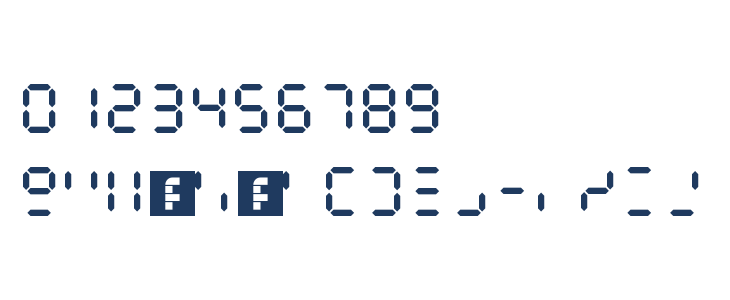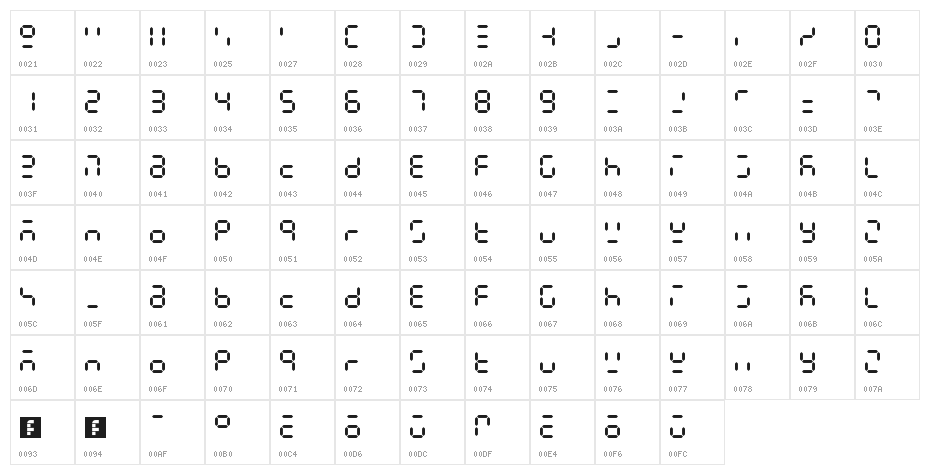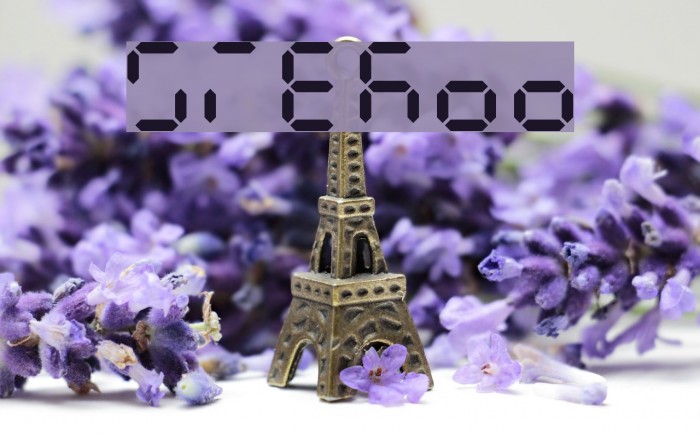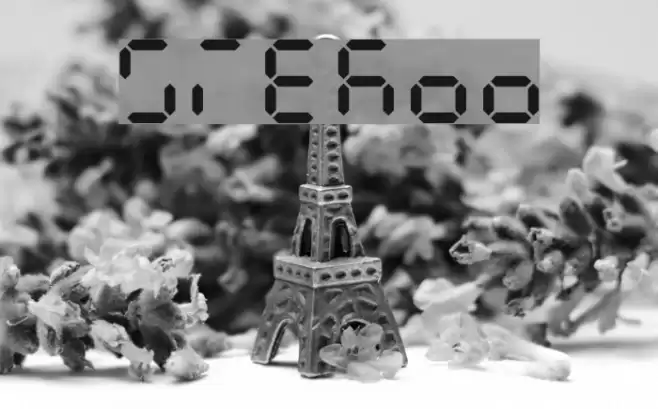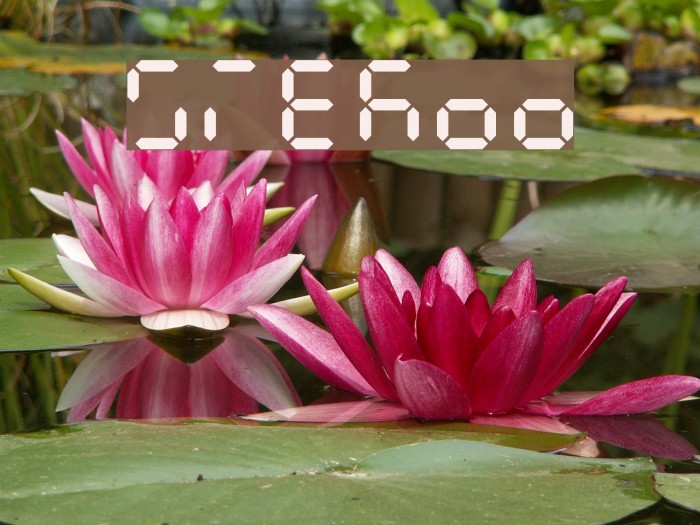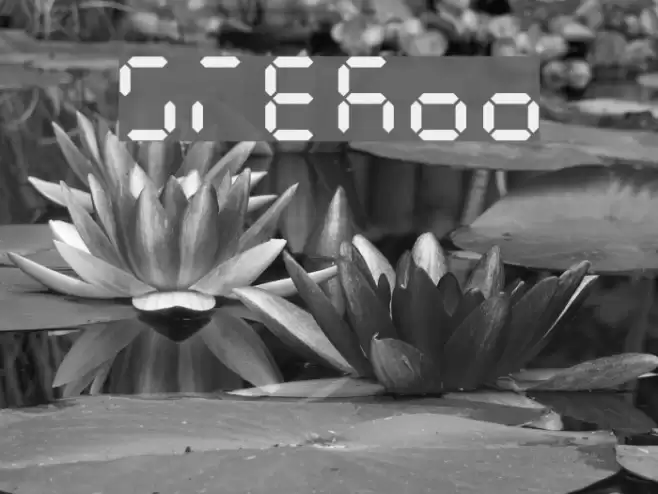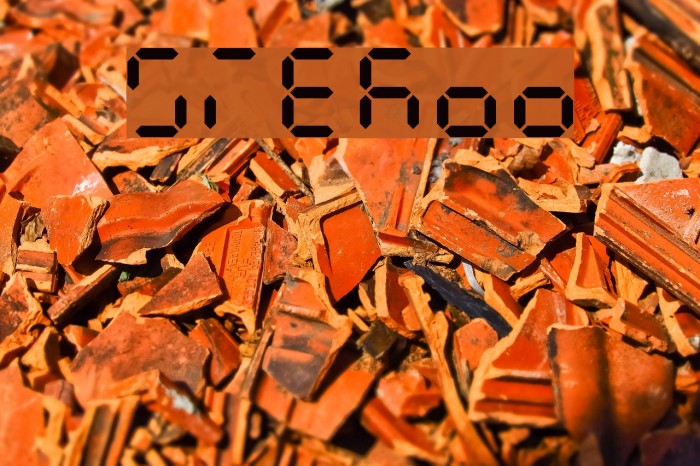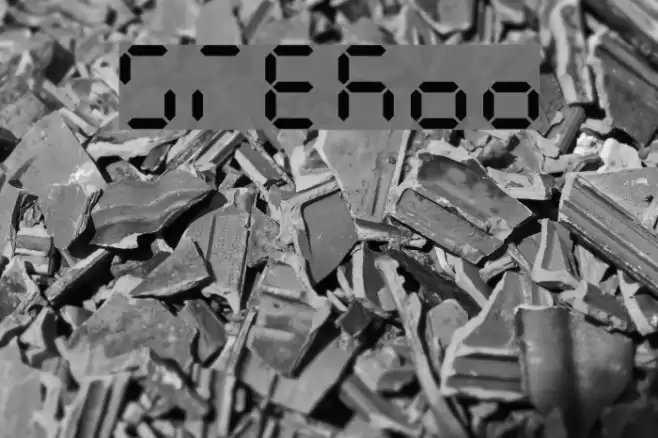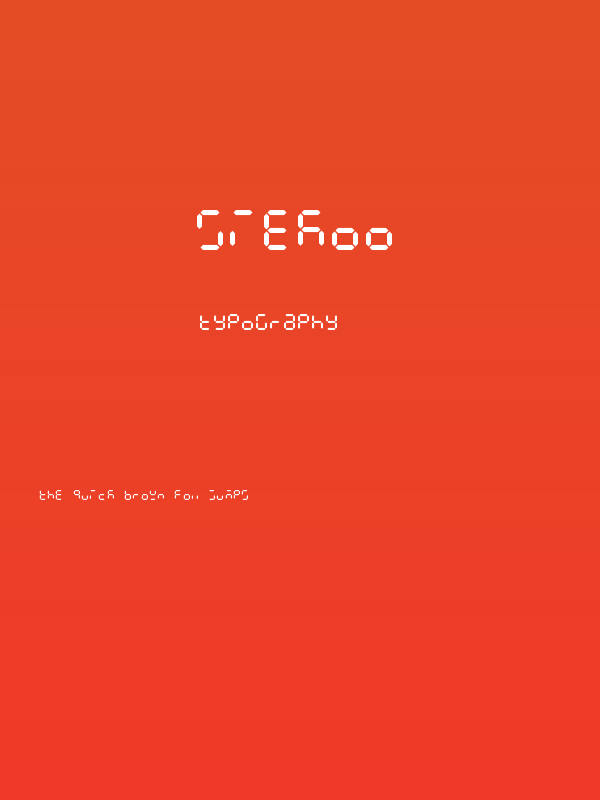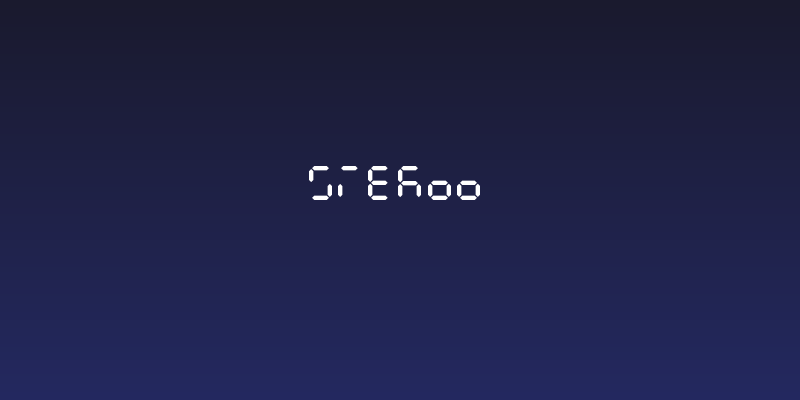
Siekoo Font
Siekoo Description
This font is a digital-style typeface that mimics the appearance of seven-segment displays commonly found in digital clocks and calculators. Each character is constructed using a series of straight lines and angles, creating a geometric and technical look. The uniformity and simplicity of the design give it a futuristic and minimalist aesthetic. The characters are evenly spaced, and the consistent stroke width across all glyphs contributes to a clean and organized appearance. This font is ideal for conveying a sense of technology and precision.
| Proposed Projects | Suitable for digital interfaces, tech-themed designs, electronic product branding, and retro-futuristic projects. |